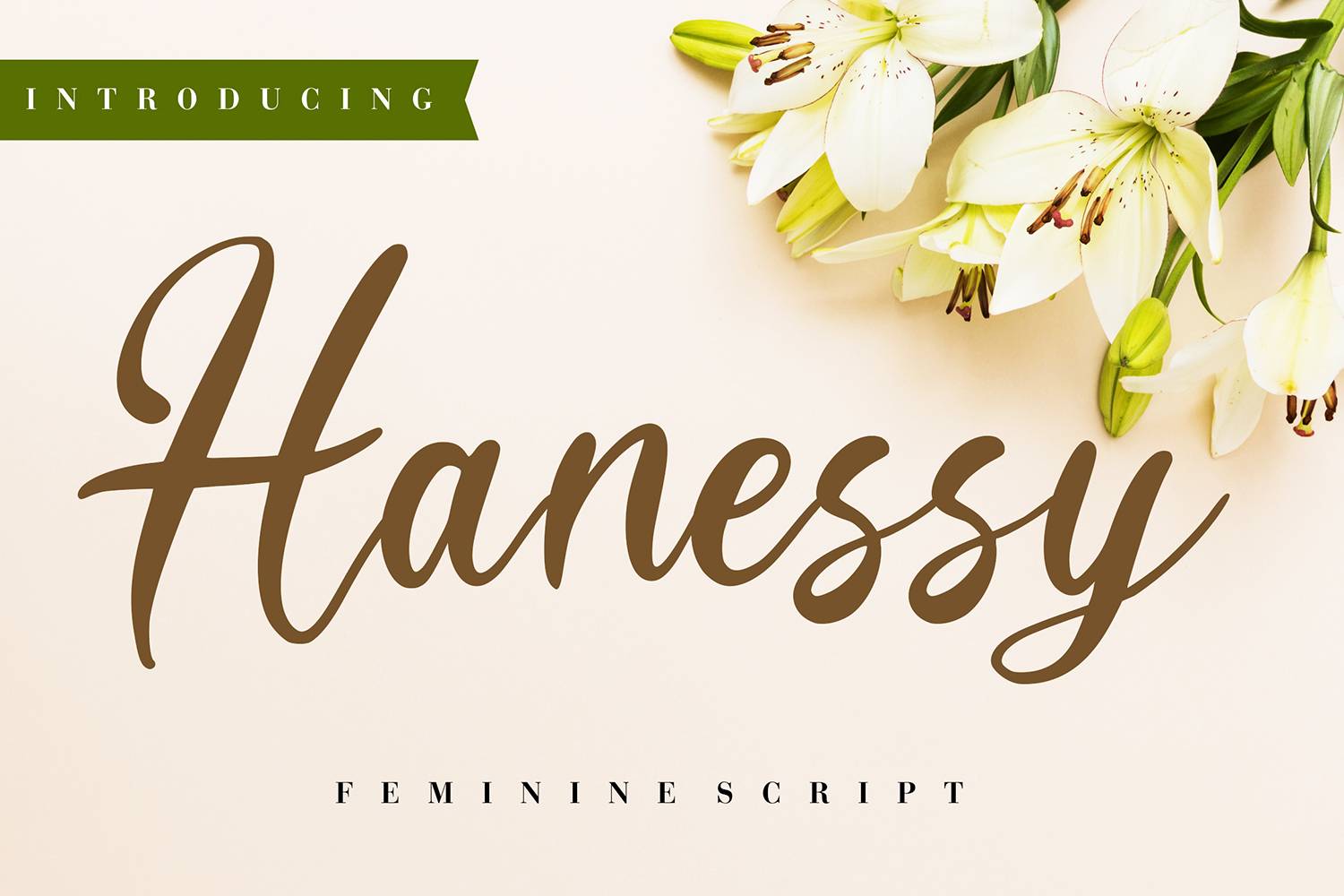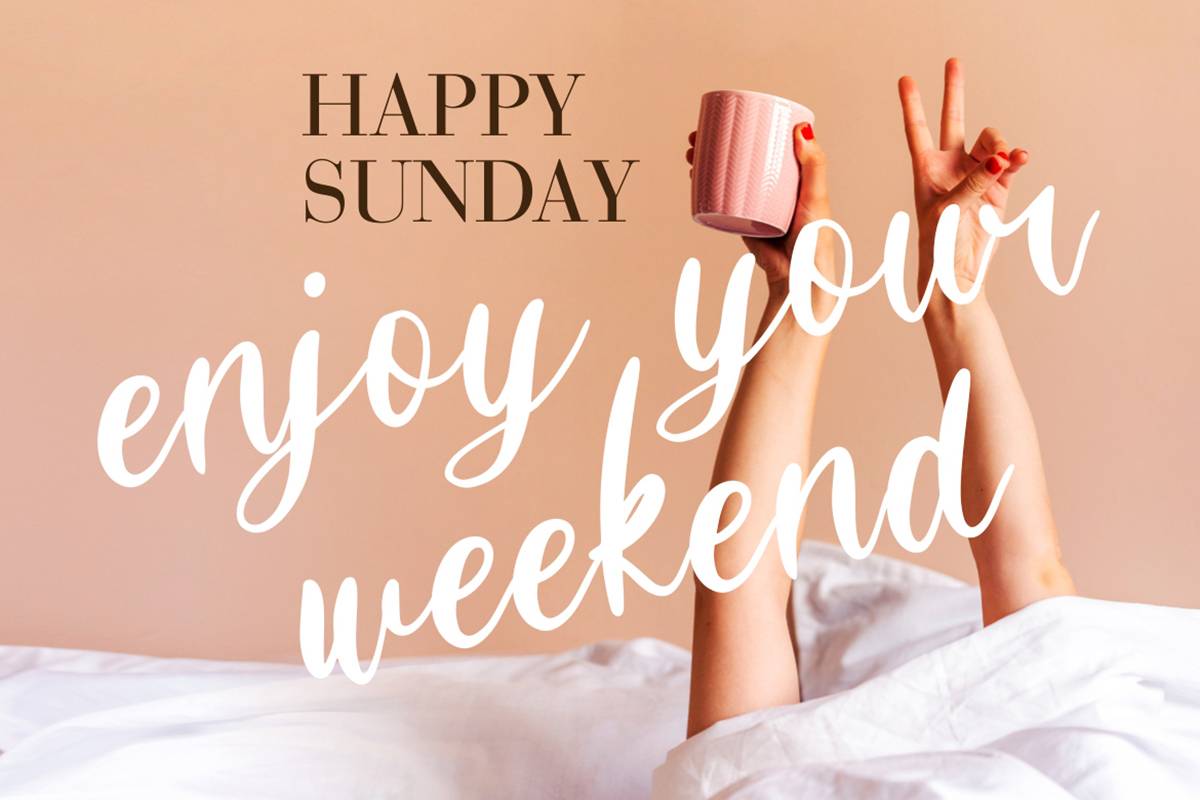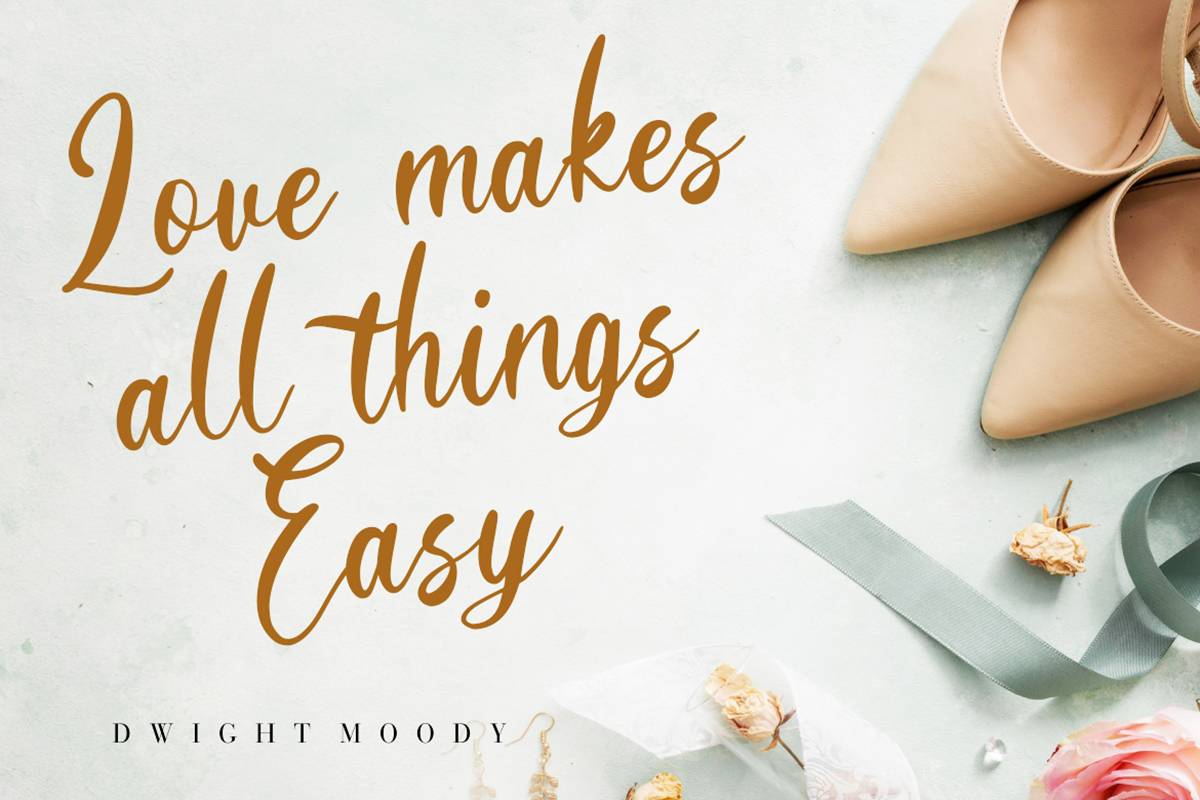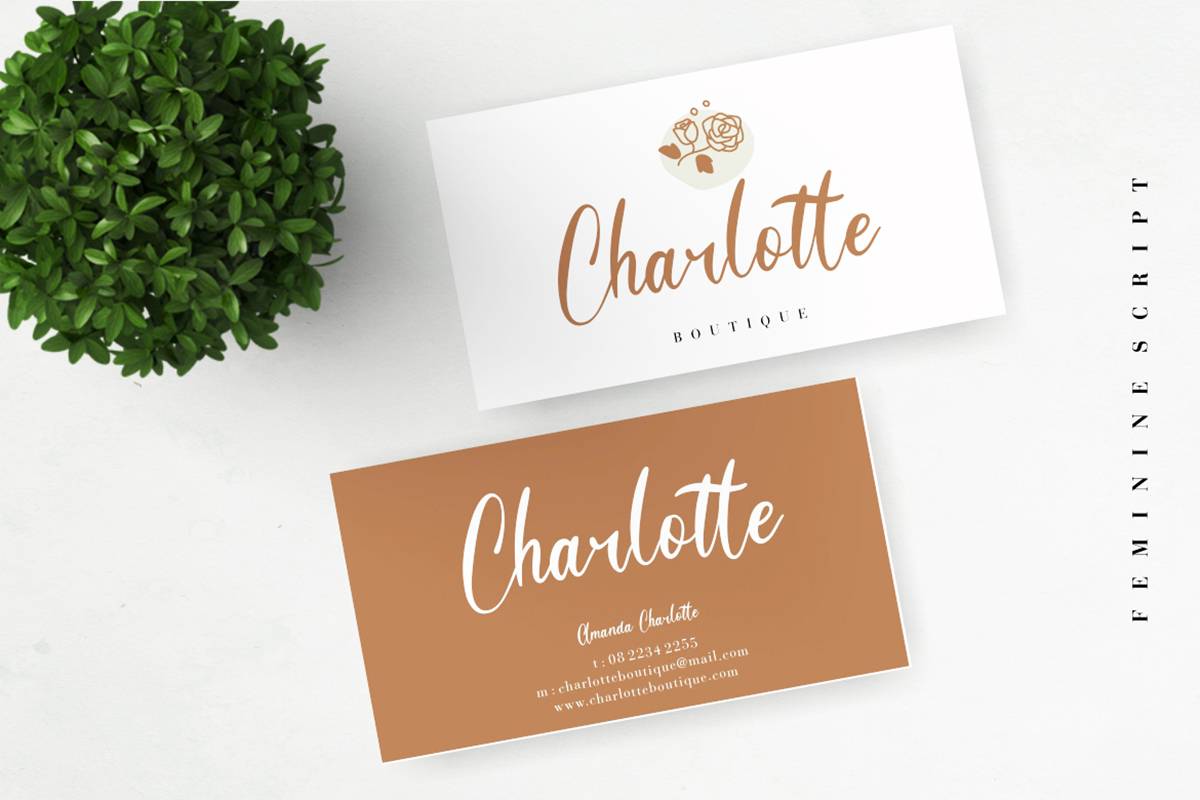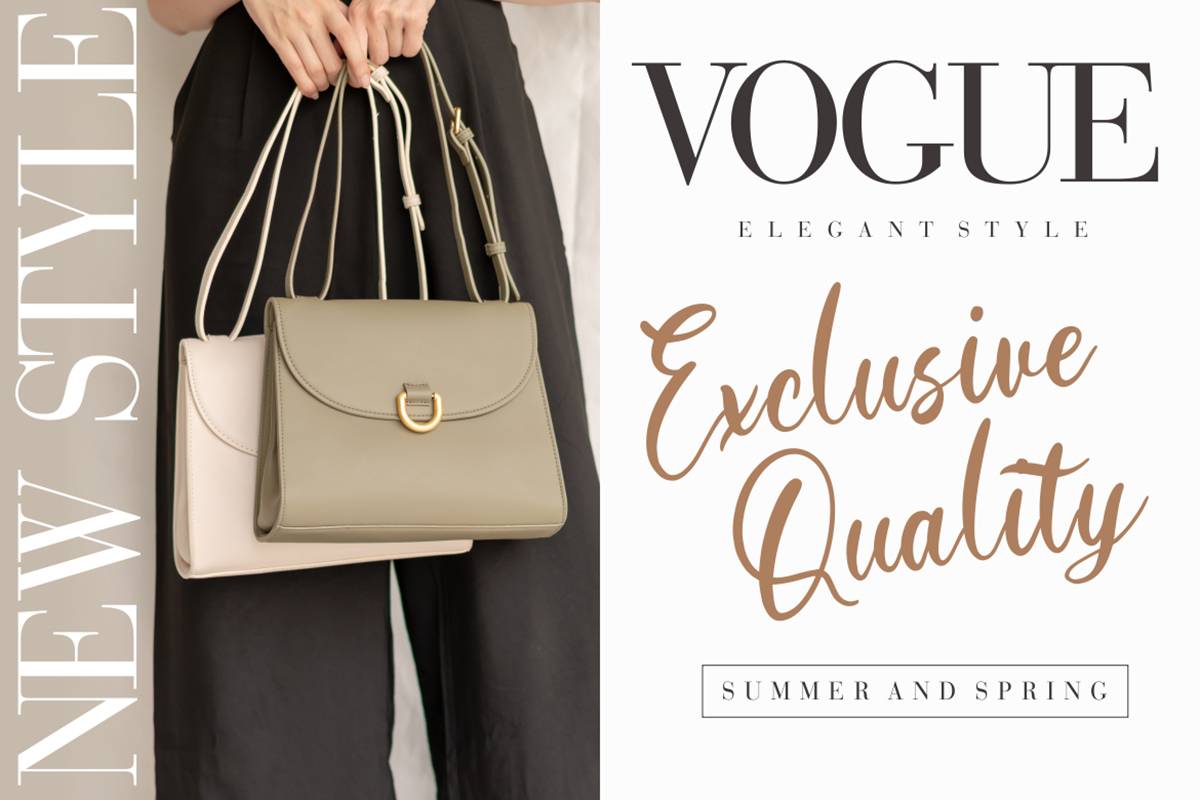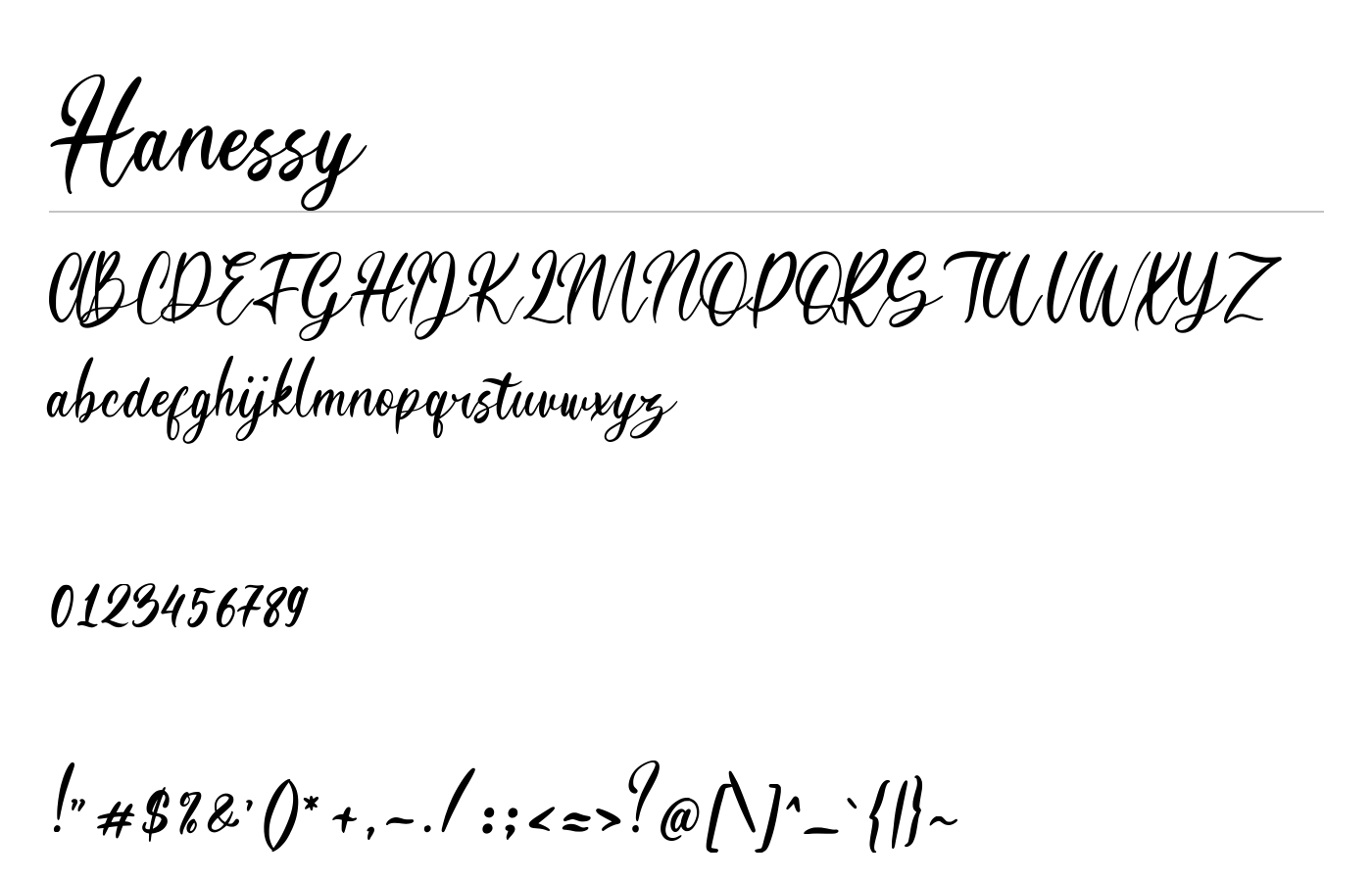
Hanessy is a stylish script font with a graceful, hand-lettered feel, featuring smooth, flowing strokes and a moderate contrast that gives it an elegant yet approachable look. Its elongated letterforms and delicate curves make it perfect for adding a personal, artistic touch to branding, invitations, and creative projects where a refined yet casual vibe is desired. This font works wonderfully for fashion, beauty, and lifestyle designs that seek to convey charm and sophistication without feeling overly formal.
Hanessy Font
About Hanessy Font